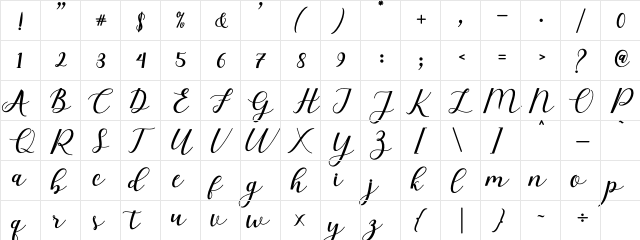
Elizabeth Script Regular
Design Context for Elizabeth Script Typeface
Elizabeth Script brings a calligraphic fluidity to the page — its connecting strokes and expressive curves give it an unmistakably human quality.
Font Pairing: Combine Elizabeth Script with a simple geometric sans for maximum contrast — the tension between flowing curves and clean structure is a classic typographic pairing.
Pro Tip: Pair Elizabeth Script with a clean sans-serif for supporting text. The contrast between fluid script and geometric structure creates an elegant typographic hierarchy.